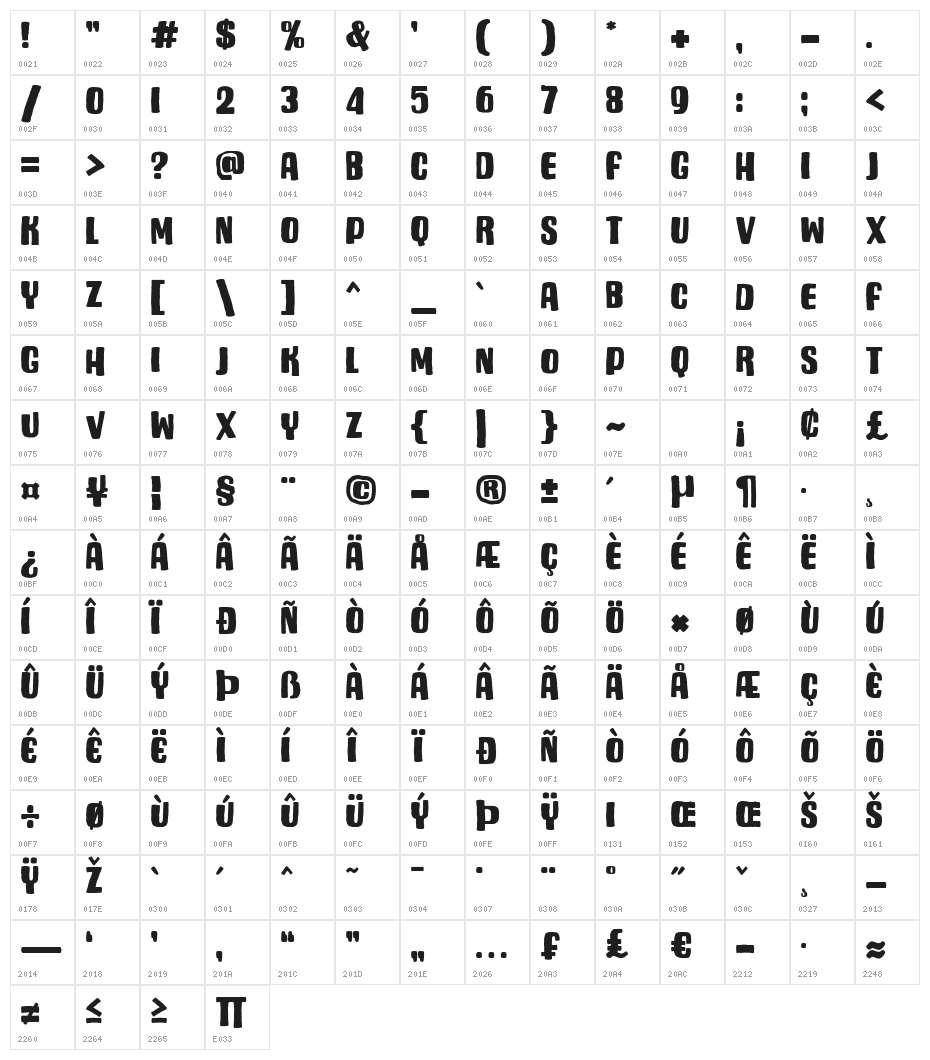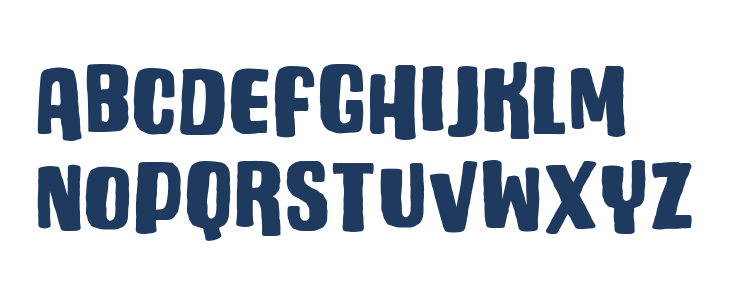
Rockies Font
| Gesamtstil | Rugged, Bold, Hand-crafted |
| Anwendungsfall | Headlines, Branding, Posters |
| Vorgeschlagene Projekte | Ideal for branding, posters, outdoor adventure themes, and headlines that need a strong visual impact. |